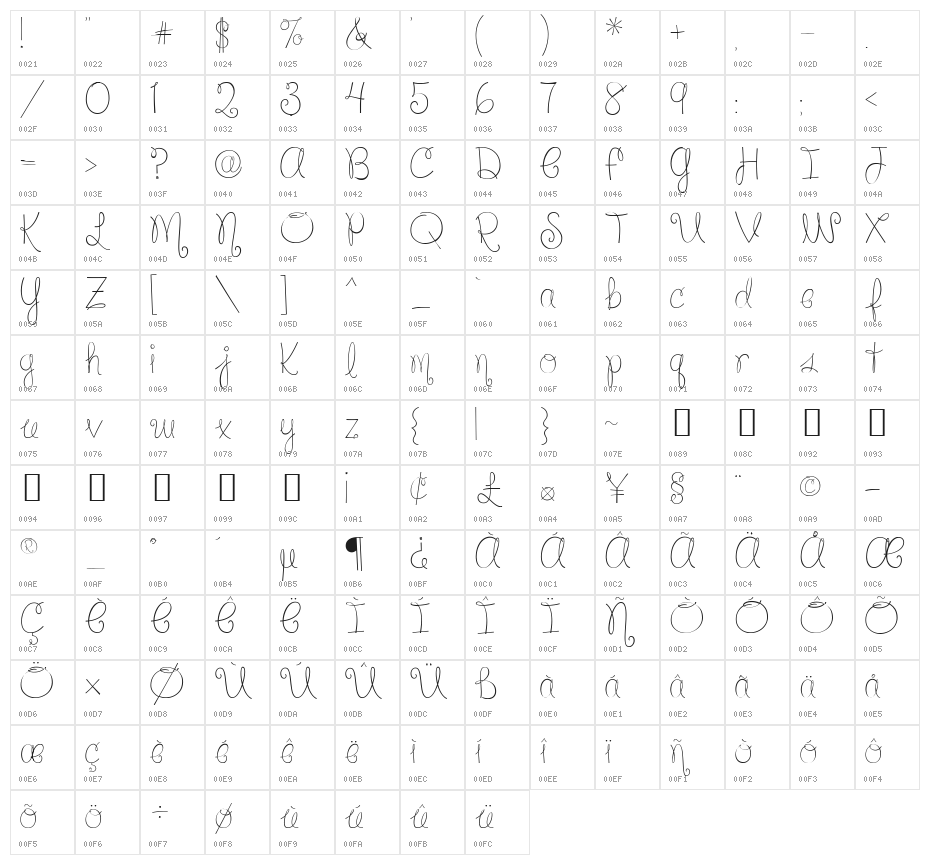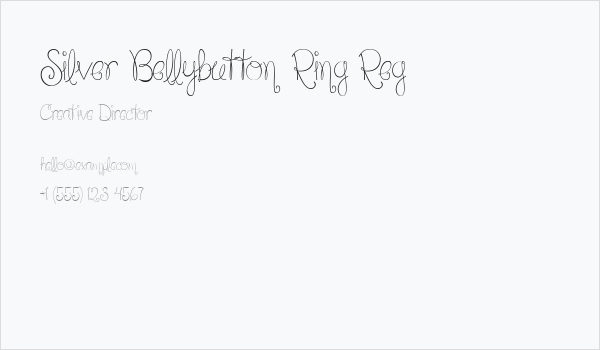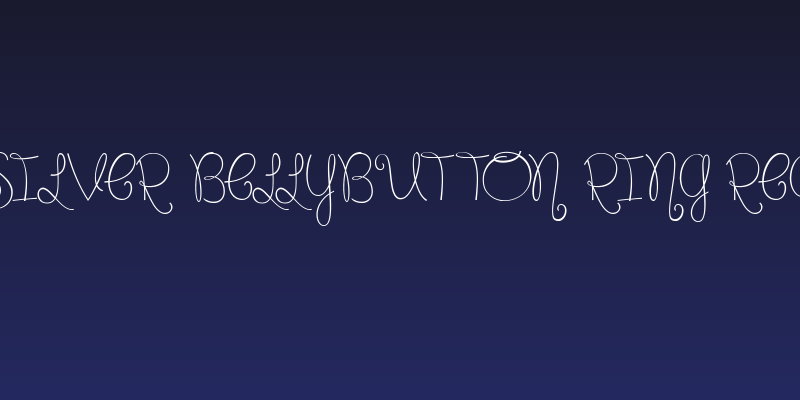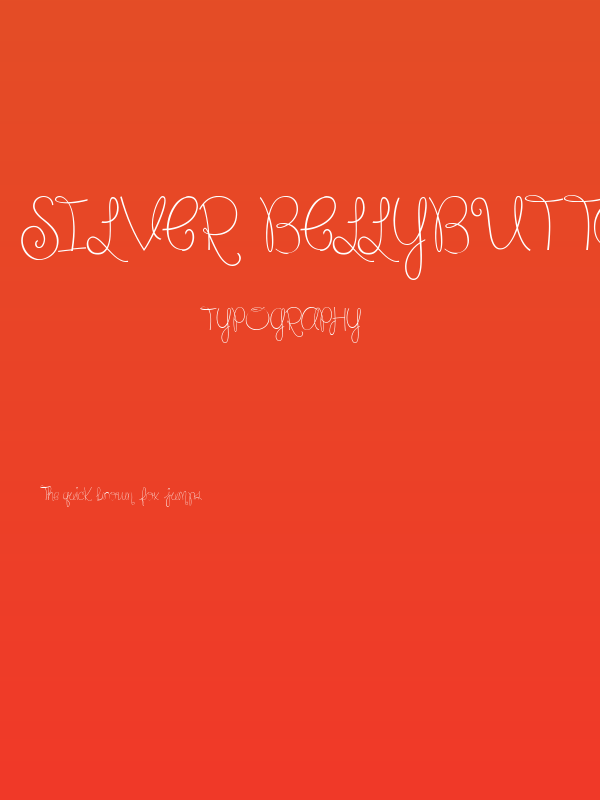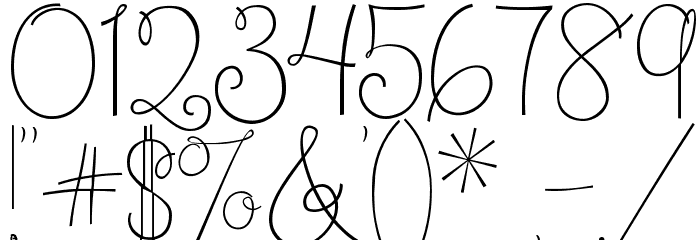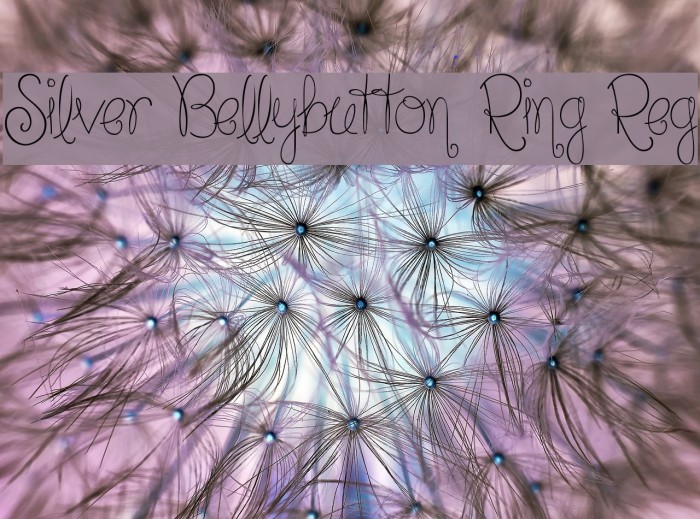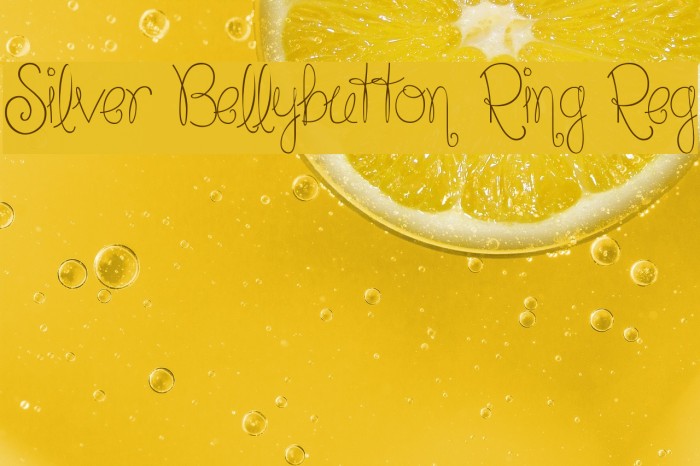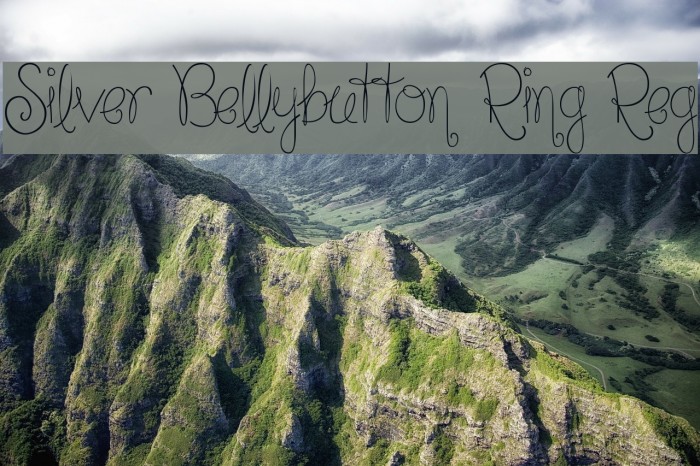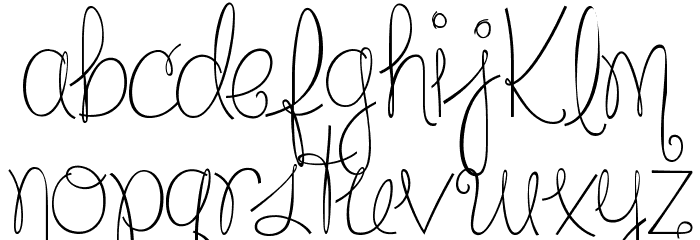
Silver Bellybutton Ring Reg Font
Silver Bellybutton Ring Reg Description
This font features a whimsical and playful design, characterized by its curly and looping strokes. The letters have a hand-drawn quality, with an elegant flow that suggests movement and creativity. The uppercase and lowercase letters maintain a consistent style, with the uppercase being slightly more elaborate. Numbers and special characters follow the same playful theme, making the font suitable for artistic and informal applications. The overall appearance is light and airy, with a sense of fun and spontaneity.
| Proposed Projects | Ideal for greeting cards, children's book covers, playful branding, and artistic invitations. |